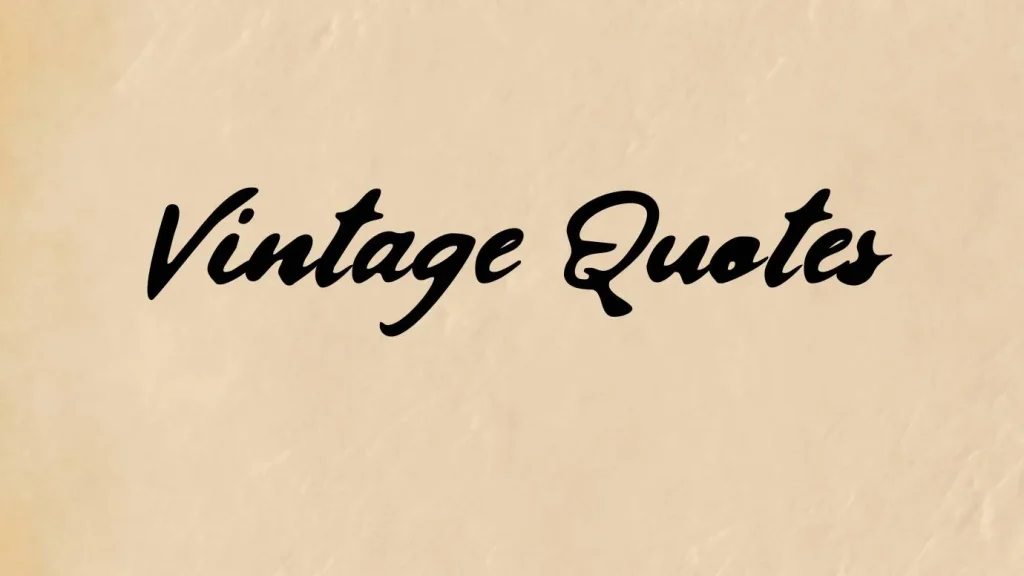
This typeface can be utilized for both advanced and print ventures. It is idealized for logos, branding, notices, magazines, websites, etc.
Vintage Quotes Font is a great choice for those who are searching for a classic script textual style. It is exceptionally smooth and clear, in its size.
This typeface can be utilized for both advanced and print ventures. It is idealized for logos, branding, notices, magazines, websites, etc.
Characters of the Vintage Quotes Font
This font is very eye-catching and attractive the design has multilingual symbols, numerals, punctuation, and ligatures, the style also includes ligatures and punctuation marks.
This typeface moreover has both lowercase characters and capitalized characters, as well as a huge number of ligatures. This typeface is best for body content, headings, and captions. It can moreover be utilized for little sums of content. You can utilize it on Canva to make interesting designs.
Using Vintage Quotes Font
Create unique designs by using them in your project. There are many uses for this superb font family, including headings, subtitles, and captions. Due to its innovative and lively features, it can be used for modification, you’ll get a simple look with its natural appearance.
This typeface can be found in magazine, book, and website designs. This typeface is creative and unique and would be perfect for a personal touch in any design project.
You can utilize the typeface for graphical designs, outlines, and more. It is additionally a great choice for those who need to make a feeling of modernity in their work. If you're looking for a font with identical style and characters, consider using the alex brush font as it perfectly matches the one mentioned.
The typeface is the idealized choice for making a feeling of advancement and uniqueness in your work. It is additionally a great choice for those who are searching for a classic text style with a nice twist.
This dazzling typeface has a place in the category of a script typeface. It is idealized for a wide extend of projects.
It is a great choice for those who are searching for a classic script textual style. It is exceptionally smooth and clear, in its size.